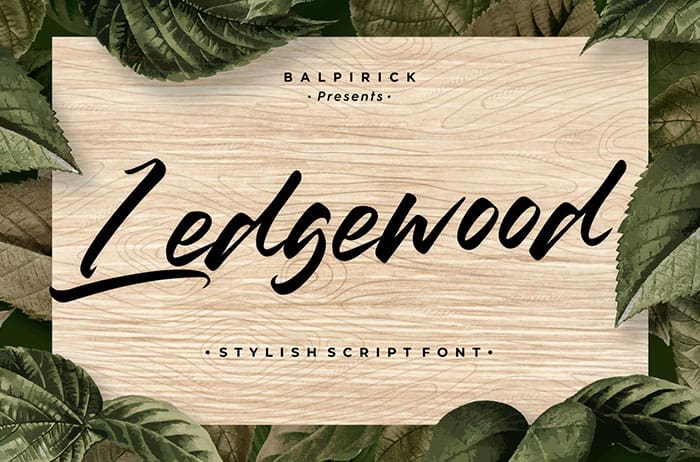
Ledgewood Stylish Script Font
Ledgewood stylish script font, carefully handcrafted to become a true favorite. This font will look outstanding in any context, whether it’s being used on busy backgrounds or as a standalone headline! Designed this font by Balpirick Studio. You can also search more free Script Fonts.